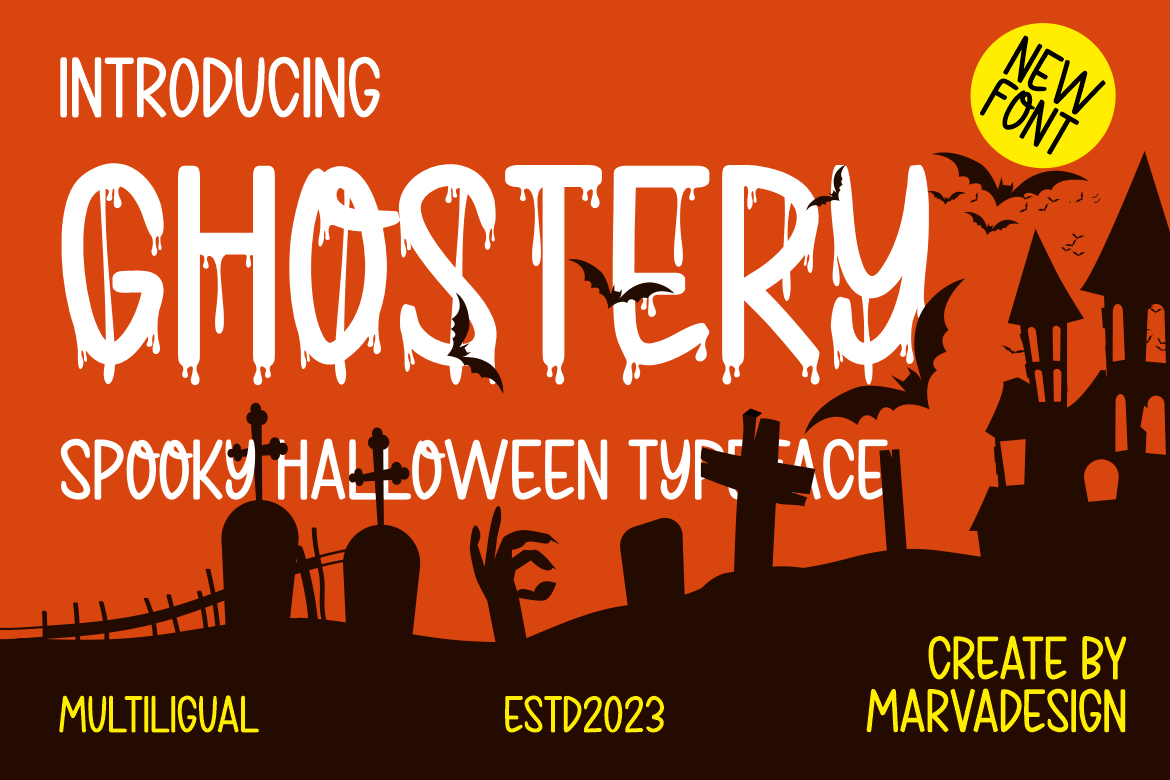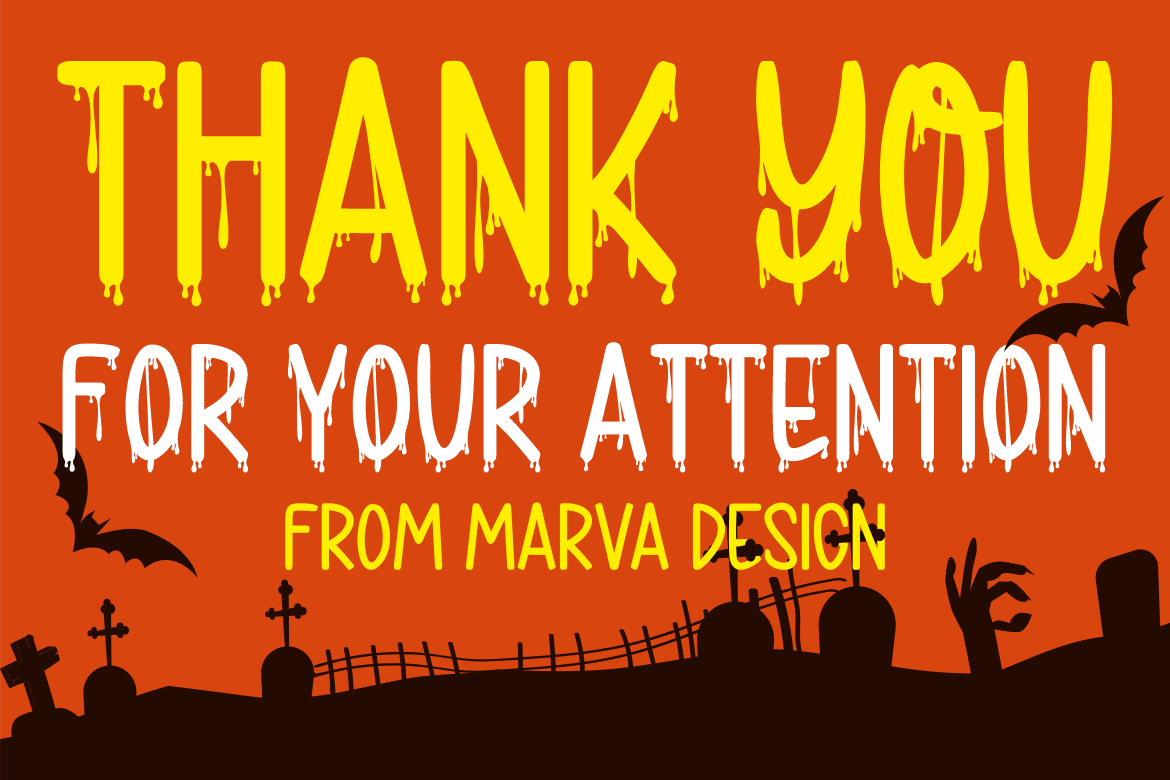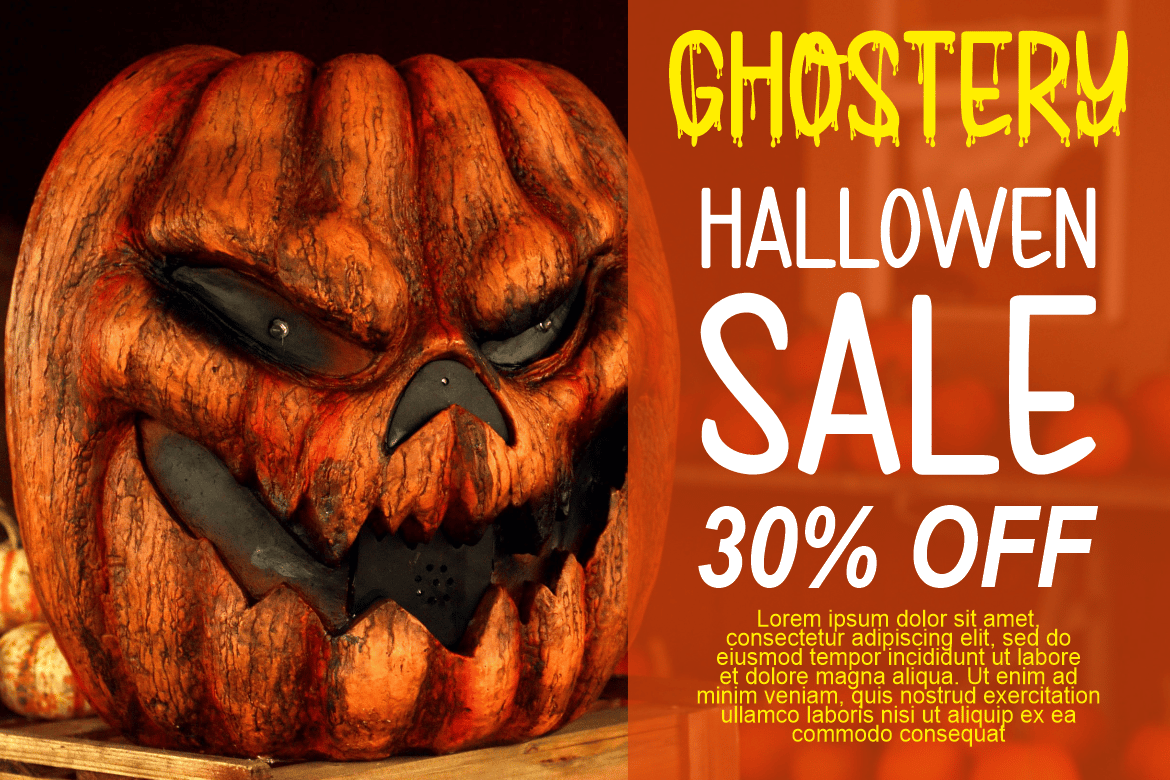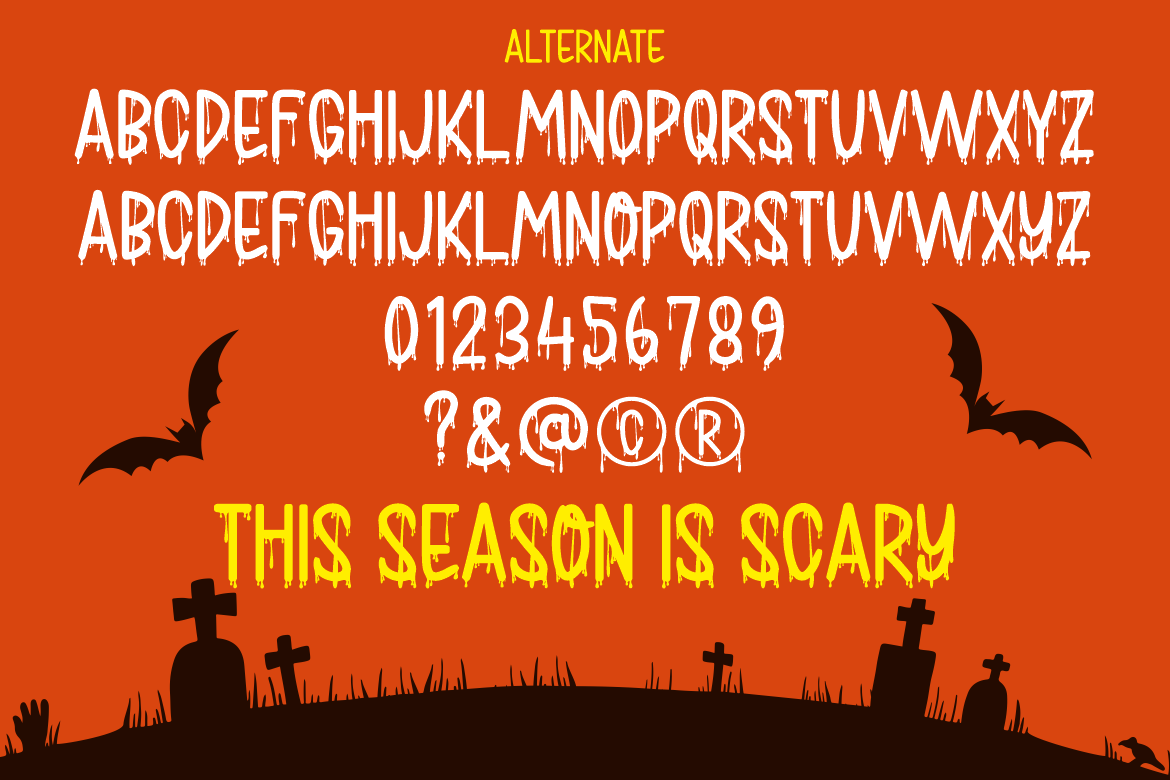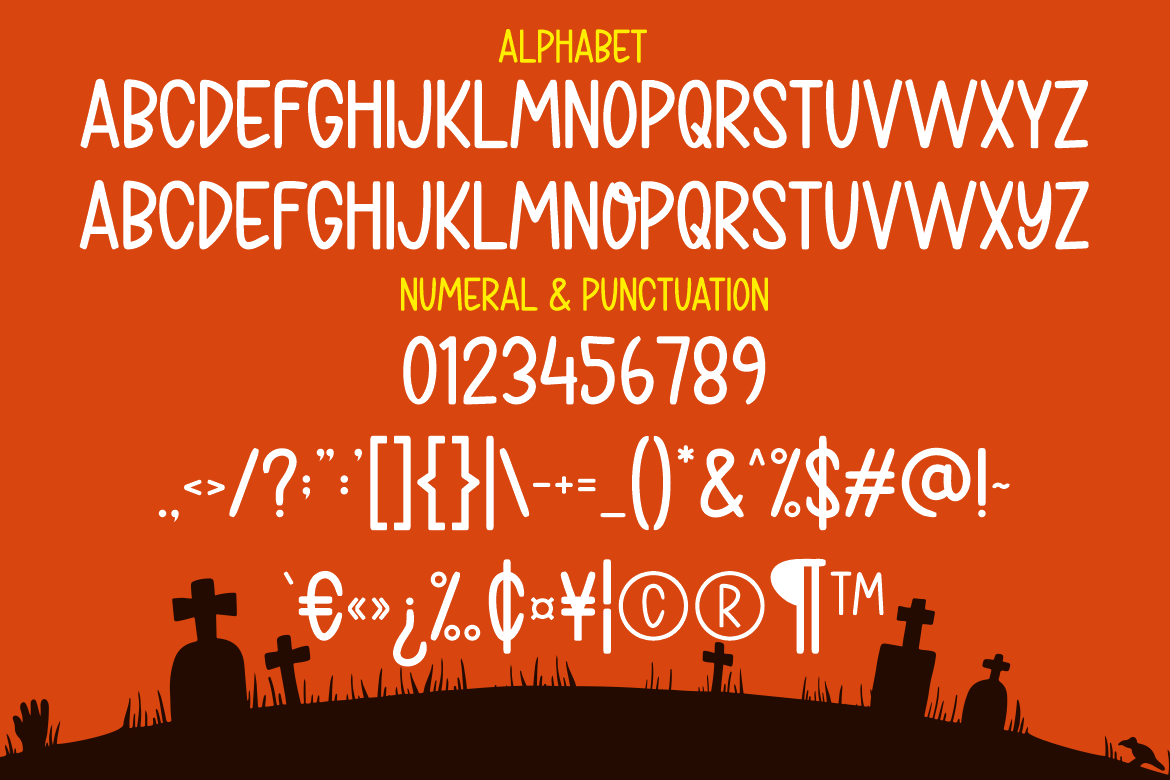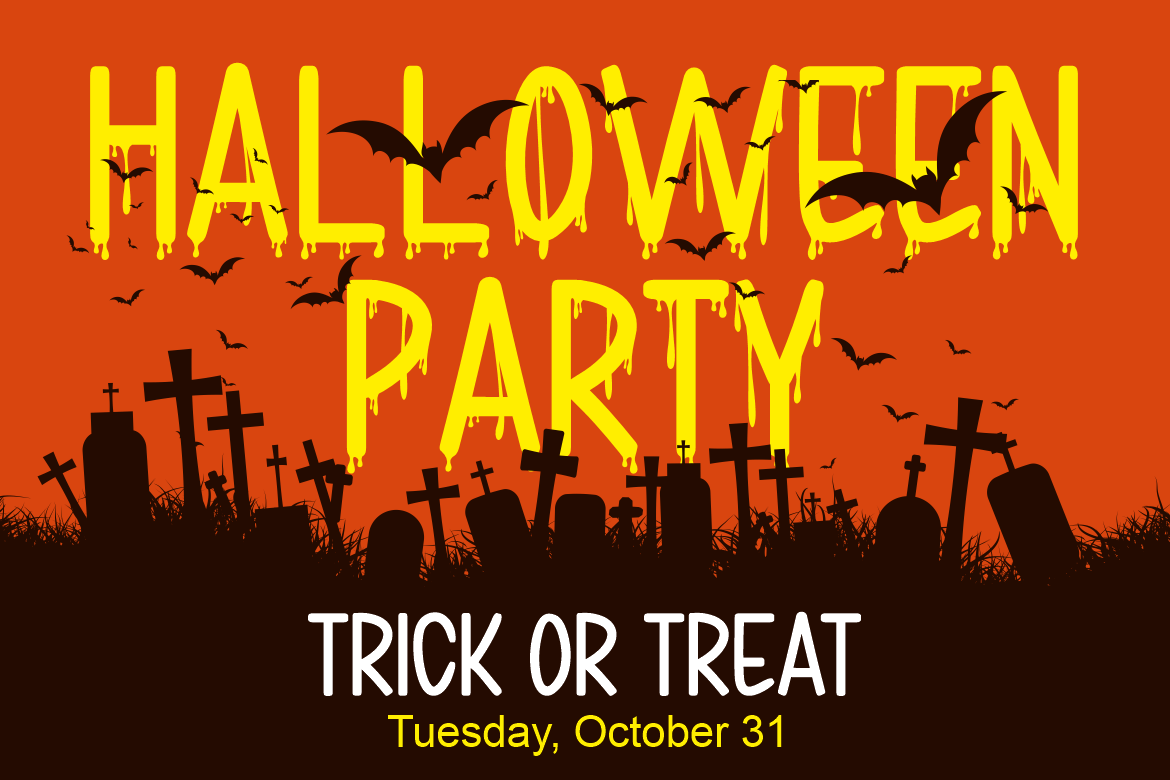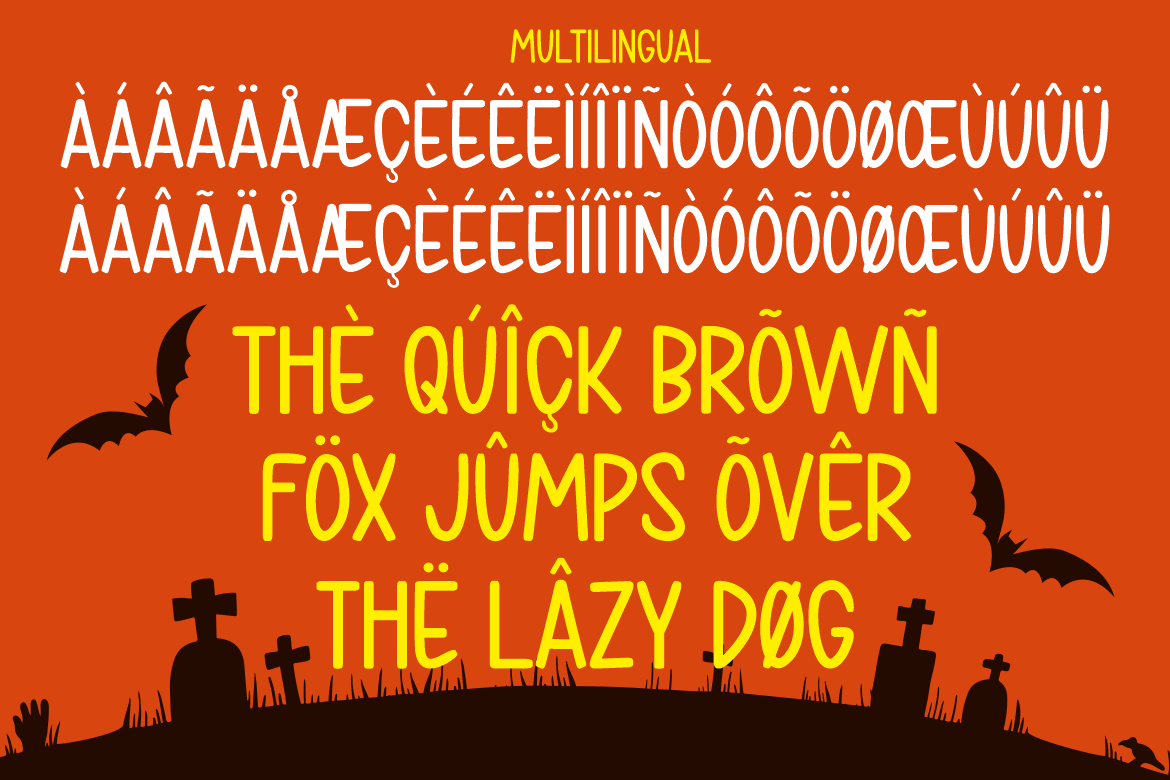
Ghostery – Modern Halloween Font
Introducing our new product Ghostery Font – Halloween Font
Ghostery Font – Modern Halloween Font is a Decorative and authentic display font. The font is suitable for any branding project like logo, Template Design, Product and many more. outstanding in a wide range of contexts.